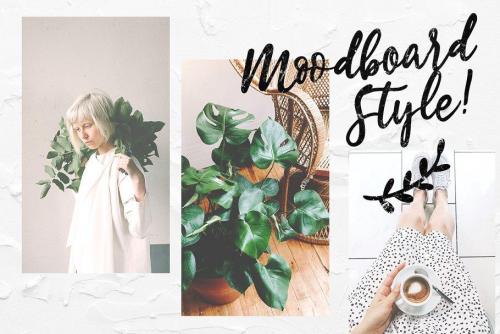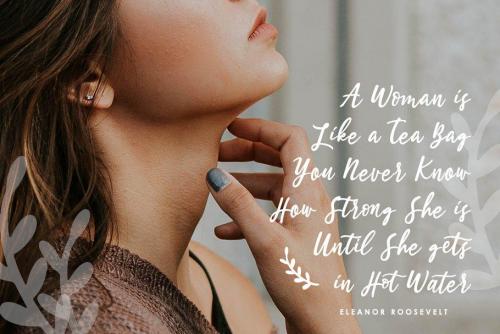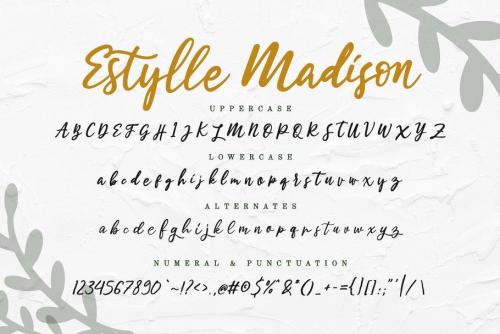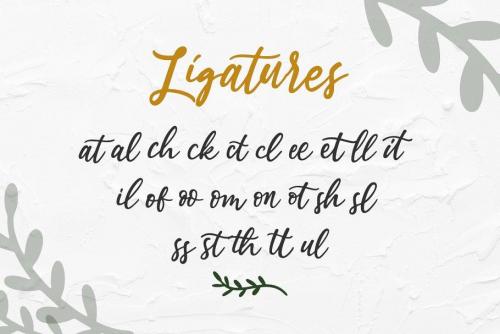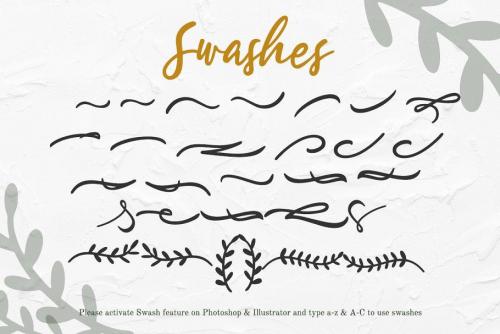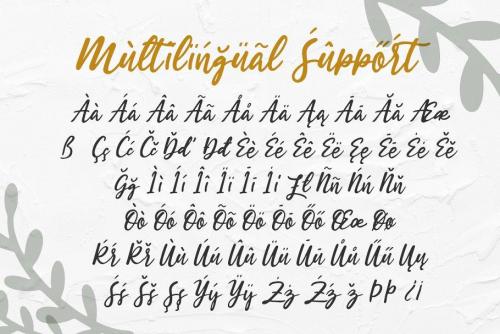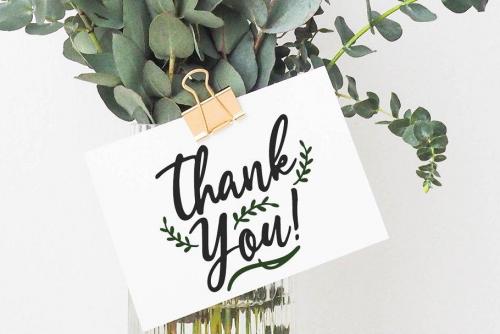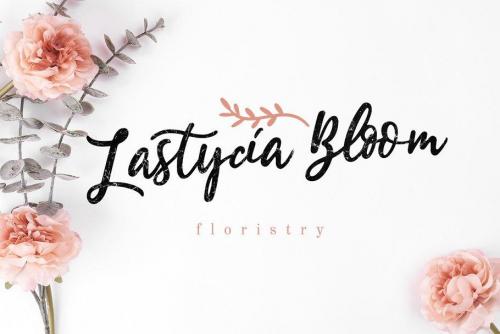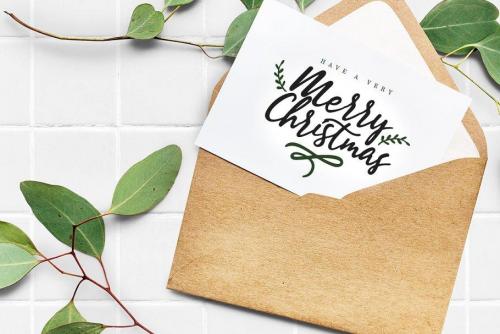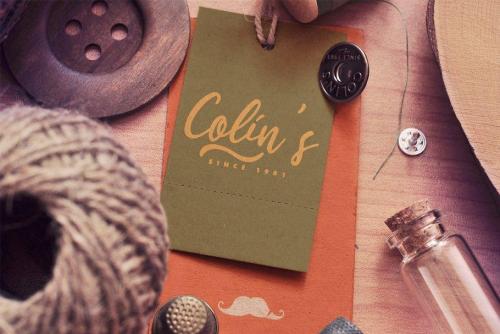
Estylle Madison is classy, elegant and super stylish modern calligraphy with natural handwritten movement.
Estylle Madison font is perfect for many different project such as logos & branding, invitation, stationery, wedding designs, social media posts, advertisements, product packaging, product designs, label, photography, watermark, special events or anything.